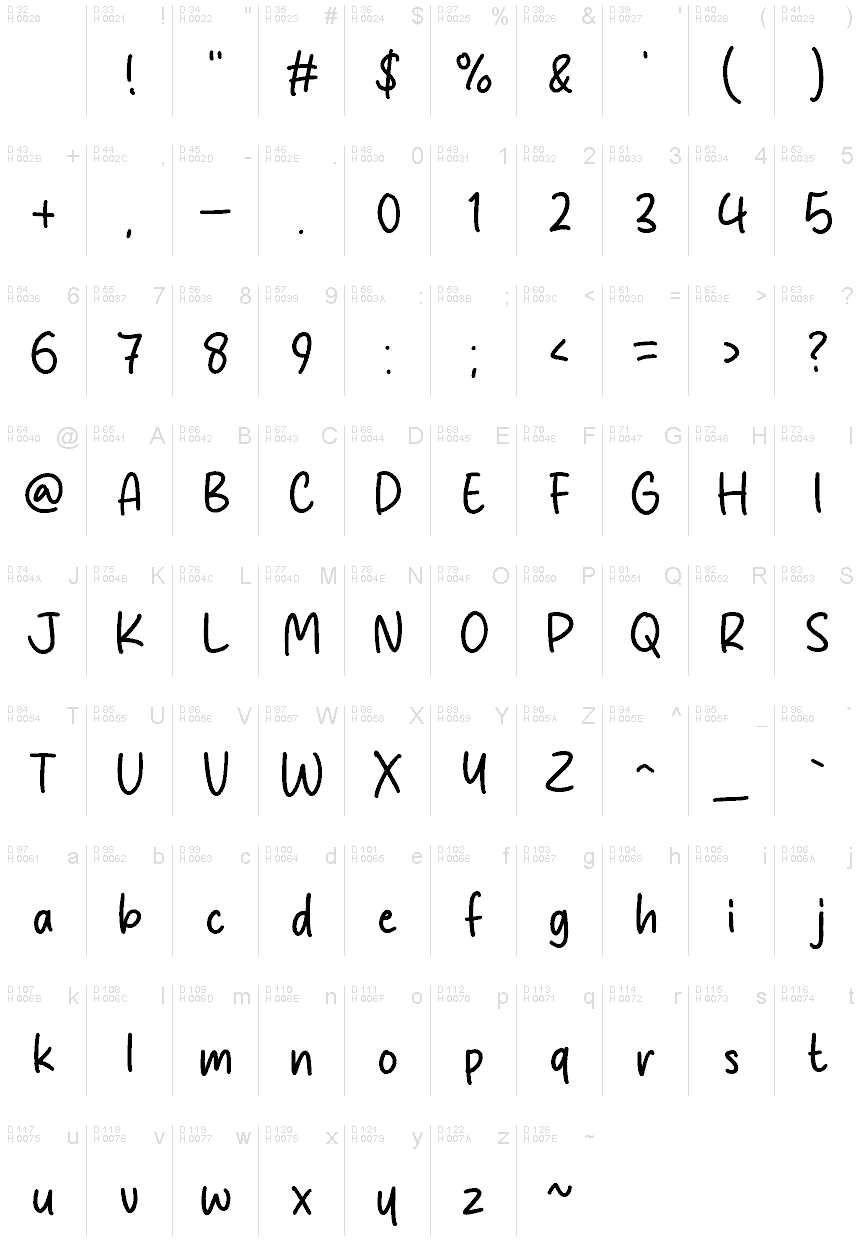
Hello Jany
Hello Jany font by MJType captures a handwritten feel with a casual aesthetic, flowing naturally with an approachable character. Its informal charm brings texts to life with warmth and personality, making it suitable for both personal and professional projects that seek a relaxed vibe.